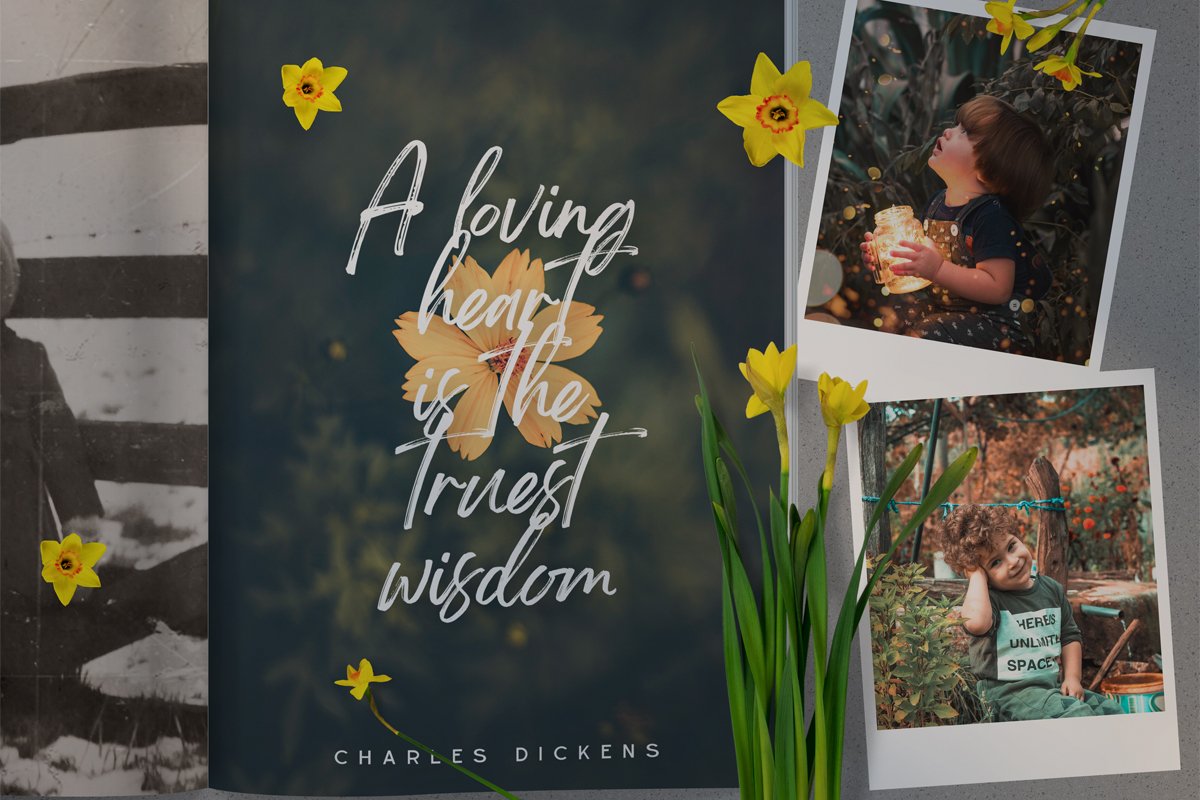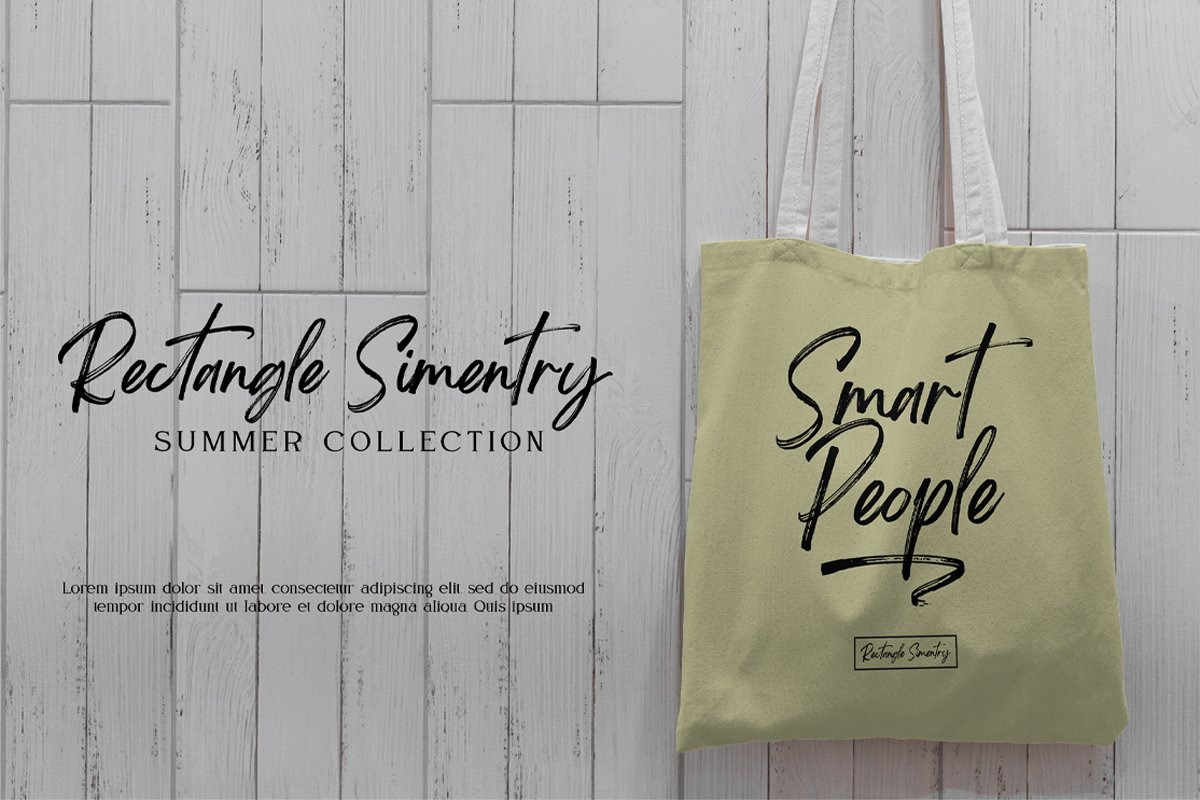
About the Brightwall Brush Script
Find out more ways to use this font by taking a look at the font preview, Included:Brightwall RegularBrightwall Italic Brightwall Swash Features:Accents (Multilingual Characters)17 Ligatures Extra SwashesPUA encodedNumerals and Punctuations Enjoy your experience with this font and feel free to contact us for further product information or trouble complaints